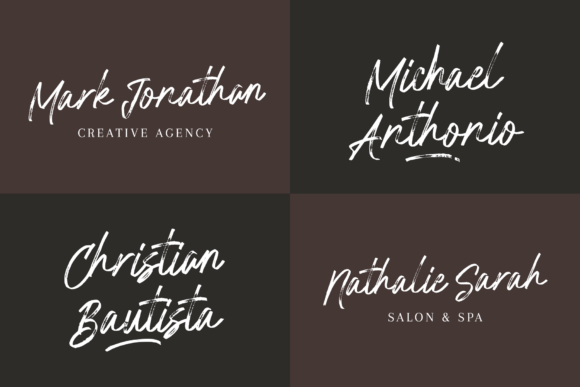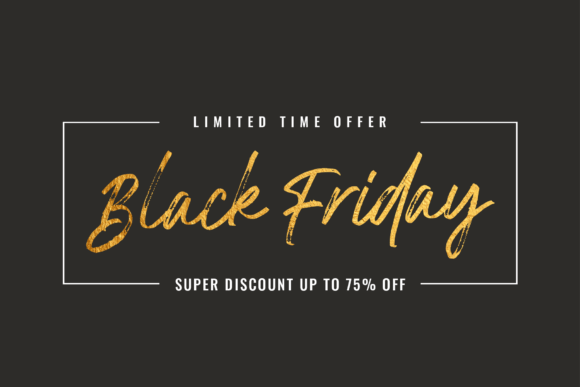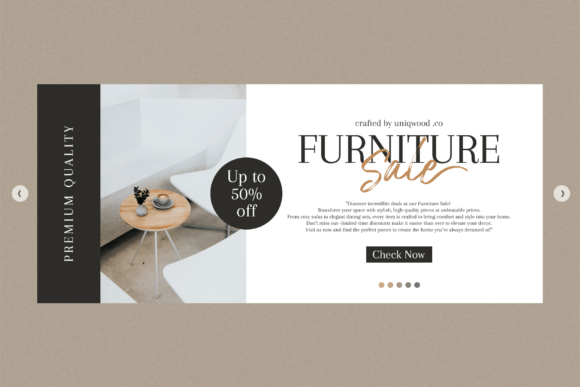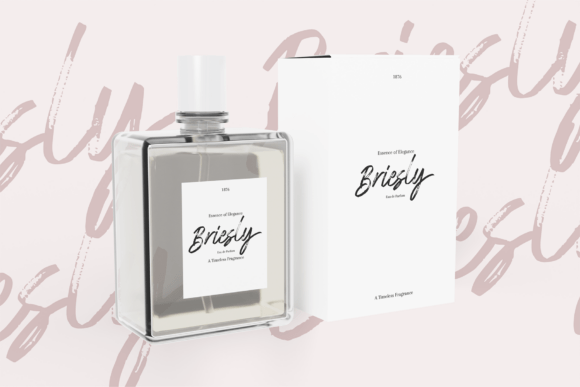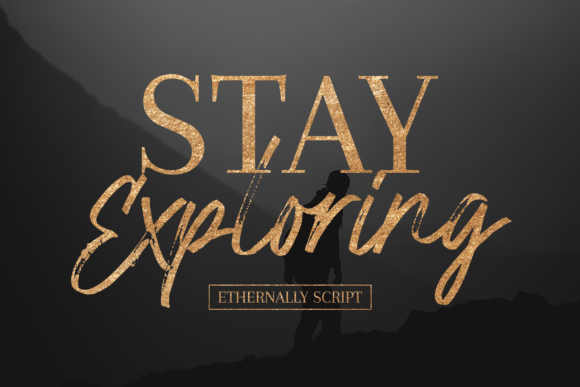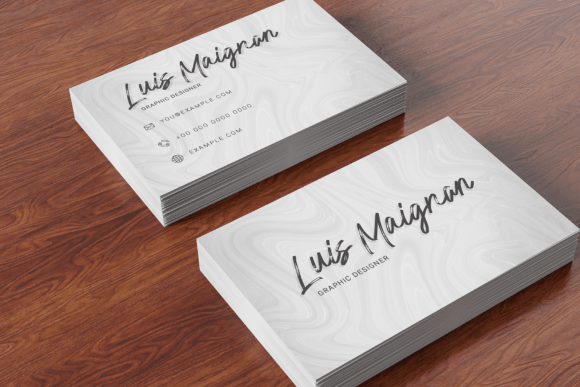
Austerally Font: Elevate Your Designs with a Touch of Handwritten Elegance
In the world of typography, fonts play a crucial role in conveying the tone and personality of a design. For designers and crafters looking to add a unique touch to their projects, the Austerally handwritten brush script font is an exceptional choice. This modern, casual, and authentic font is designed to bring creativity and personality to your designs, making them stand out in any context.
The Essence of Handwritten Artistry
Austerally font captures the essence of handwritten artistry with its smooth strokes and natural flow. The font’s design is inspired by the imperfections and uniqueness of handwritten script, giving it a warm and personal feel. The smooth strokes and natural flow of Austerally font make it perfect for a wide range of design applications, from branding and packaging to social media graphics and digital art.
A Perfect Blend of Modernity and Elegance
What sets Austerally font apart is its perfect blend of modernity and elegance. The font’s clean and professional look makes it suitable for designs that require a touch of sophistication, while its casual and authentic feel ensures that it remains approachable and relatable. This versatility makes Austerally font an excellent choice for designers and crafters looking to create unique and engaging designs.
Key Features of Austerally Font
- Handwritten Brush Script: Austerally font features a beautiful handwritten brush script that adds a personal touch to your designs.
- Smooth Strokes and Natural Flow: The font’s smooth strokes and natural flow give it a warm and inviting feel.
- Modern and Casual: Austerally font is perfect for designs that require a modern and casual touch.
- Clean and Professional: The font’s clean and professional look makes it suitable for a wide range of design applications.
- Unique and Elegant: Austerally font adds a touch of uniqueness and elegance to your designs, making them stand out in any context.
Uses of Austerally Font
Austerally font is an incredibly versatile font that can be used in a wide range of design applications, including:
- Branding and Packaging: Use Austerally font to create unique and memorable brand identities.
- Social Media Graphics: Add a personal touch to your social media graphics with Austerally font.
- Digital Art: Use Austerally font to create stunning digital art pieces that showcase your creativity.
- Invitations and Stationery: Add a touch of elegance to your invitations and stationery with Austerally font.
- Web Design: Use Austerally font to create clean and professional websites that stand out.
Why Choose Austerally Font?
With so many fonts available, why choose Austerally font? Here are just a few reasons:
- Unique and Authentic: Austerally font is a unique and authentic font that adds a personal touch to your designs.
- High-Quality Design: The font is designed to high standards, ensuring that it looks great in any context.
- Easy to Read: Austerally font is easy to read, making it perfect for designs that require a clear and concise message.
- Versatile: The font is incredibly versatile, making it suitable for a wide range of design applications.
In conclusion, Austerally font is an exceptional choice for designers and crafters looking to add a unique touch to their projects. With its smooth strokes, natural flow, and perfect blend of modernity and elegance, Austerally font is perfect for a wide range of design applications. Whether you’re looking to create branding and packaging, social media graphics, or digital art, Austerally font is an excellent choice. So why not give it a try and see how it can elevate your designs?